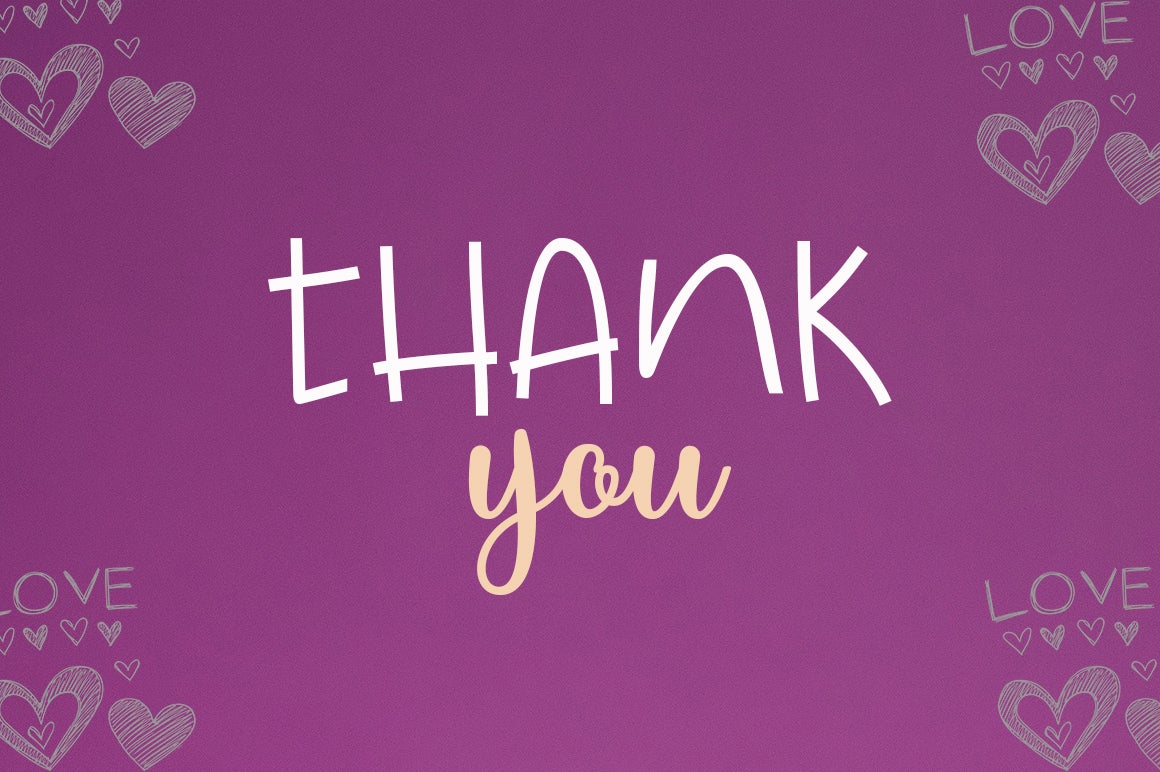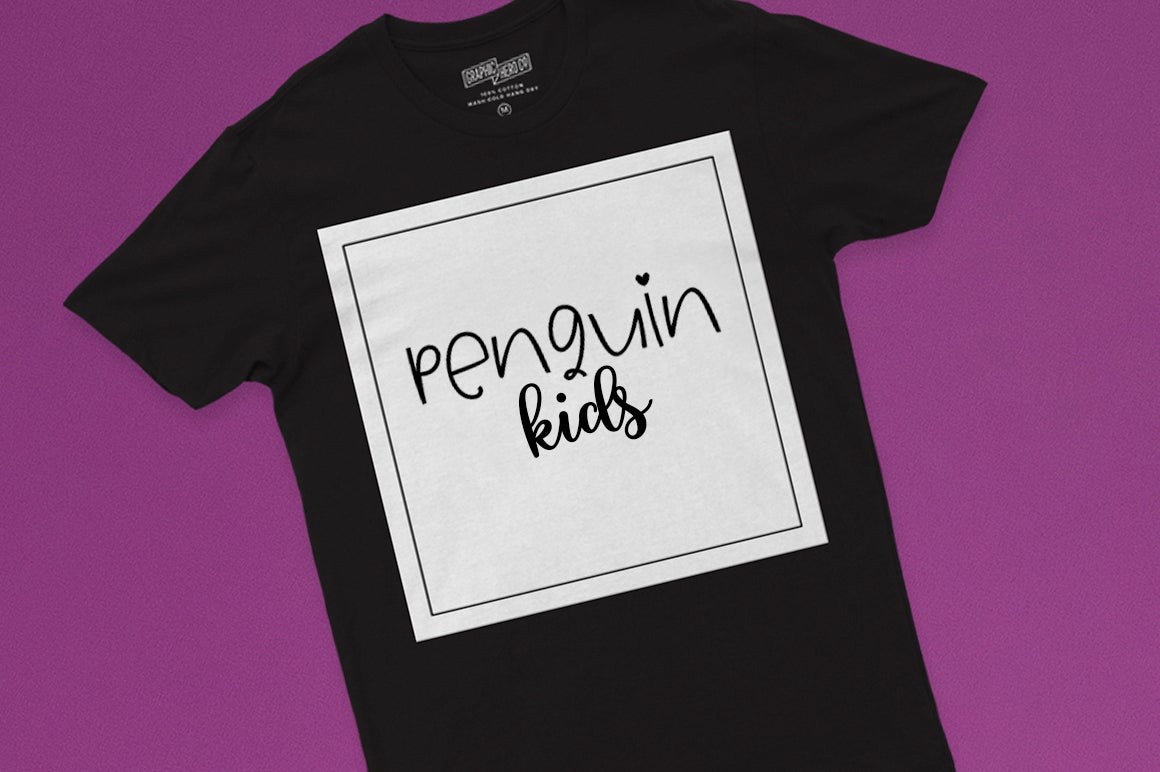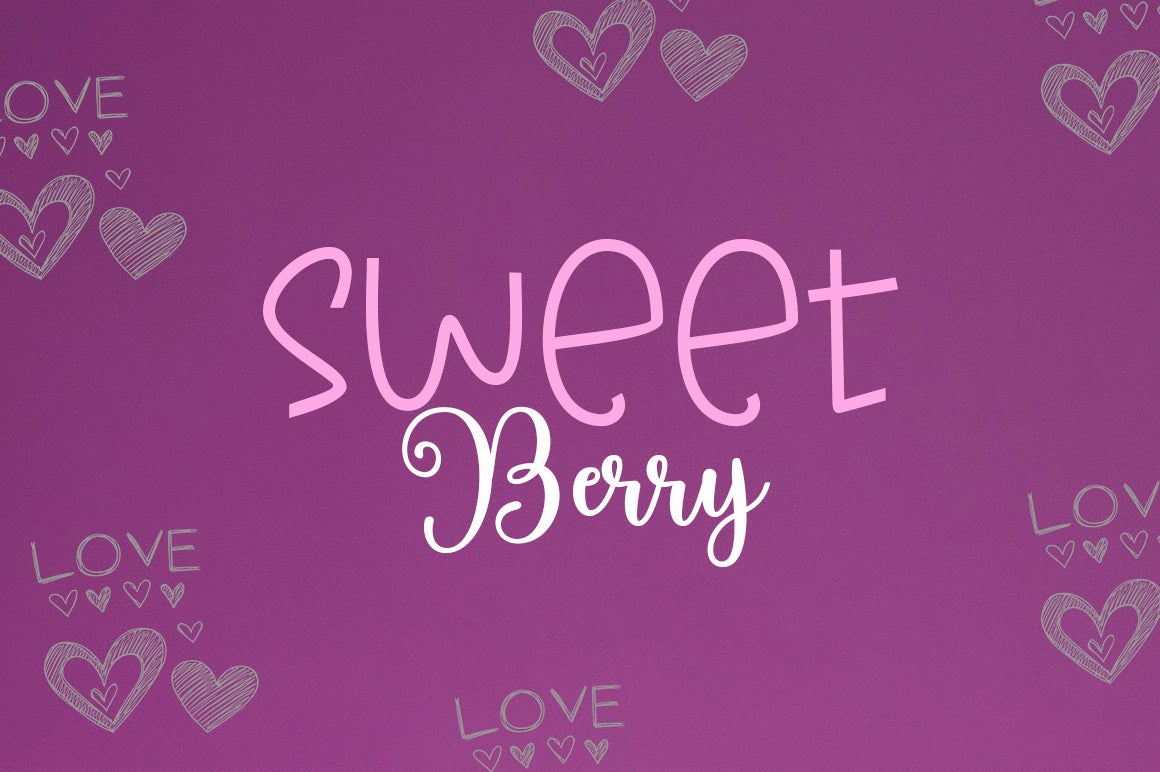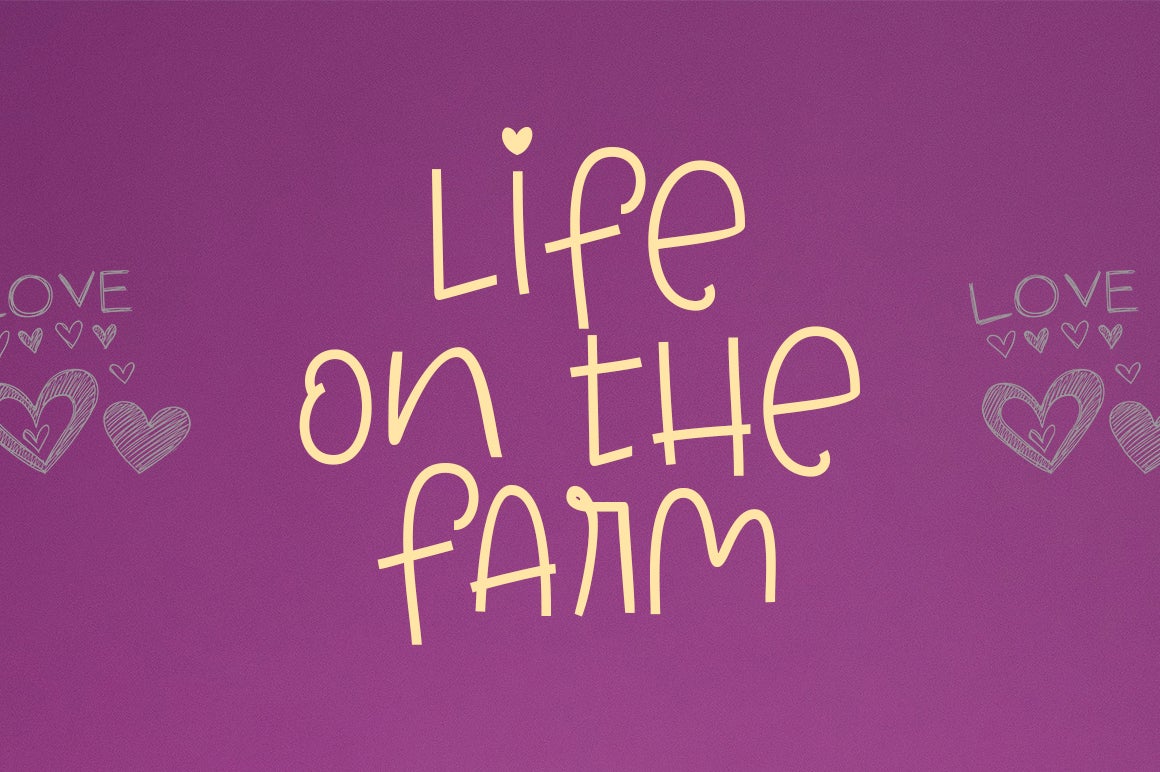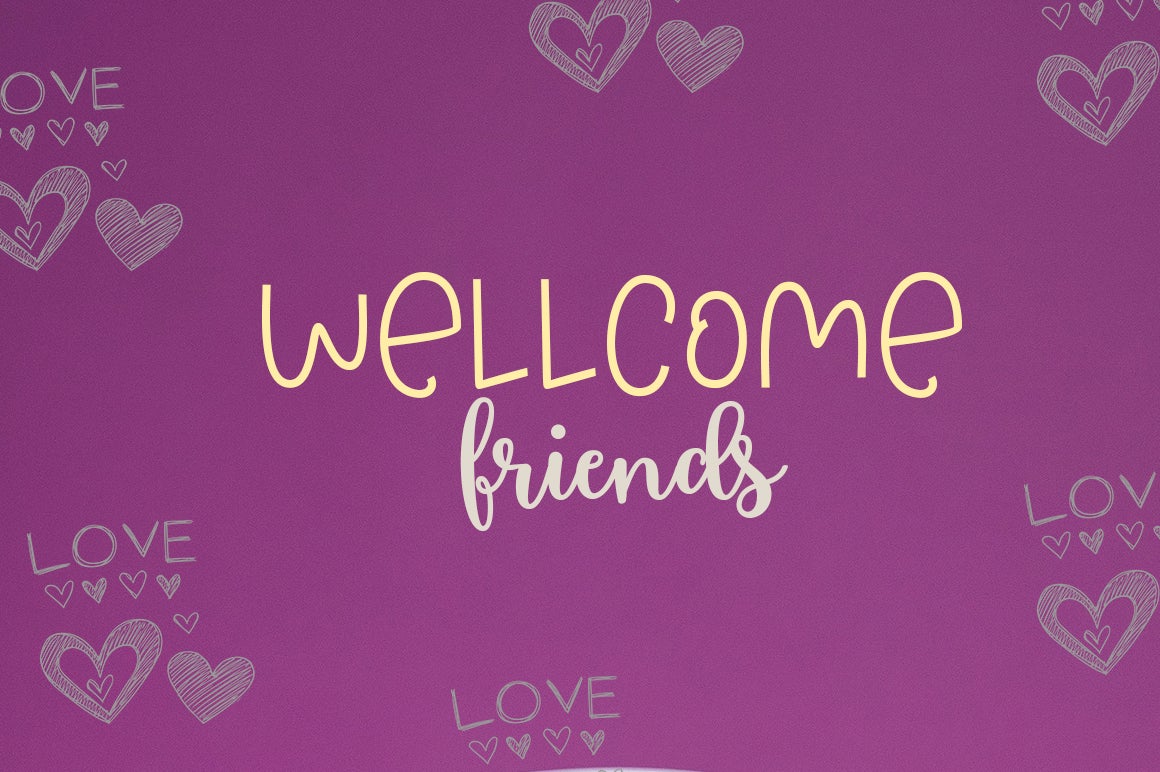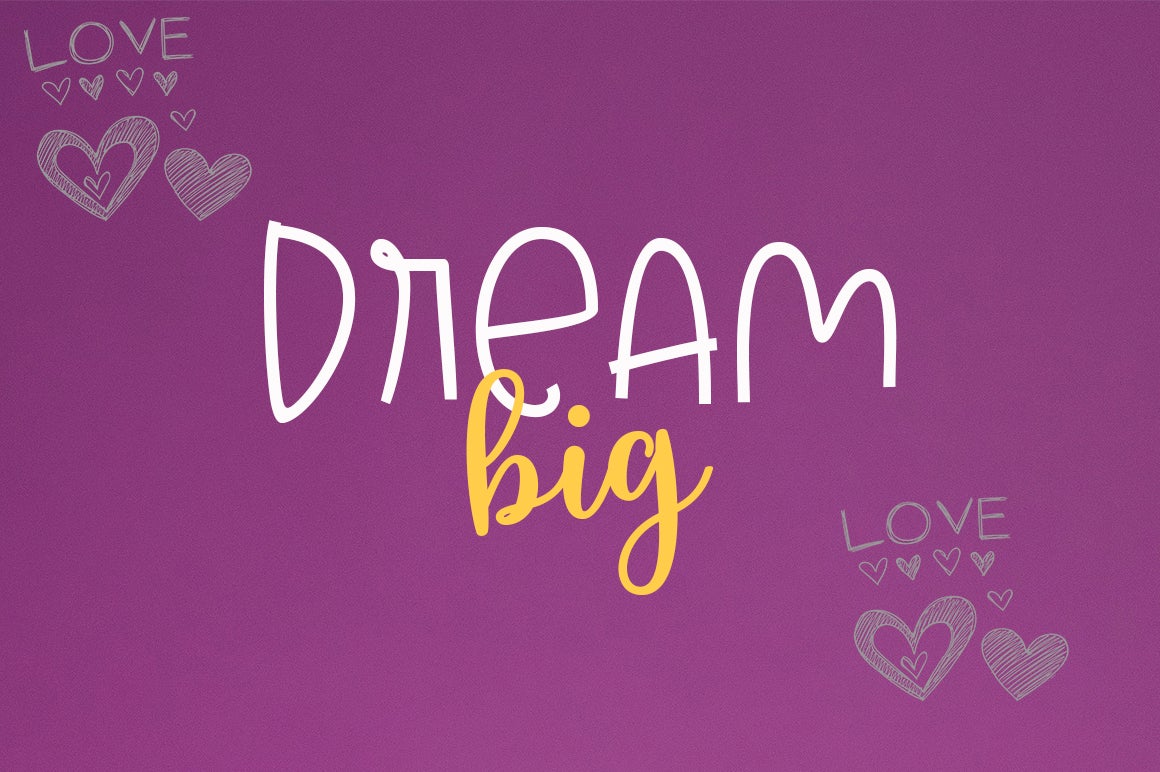
HomeScript FontsMiken Sweetness Script Fonts Miken Sweetness FacebookXPinterestWhatsApp 1 of 7 ... ... ... ... ... ... ... About Miken Sweetness is a lovely duo font (script and display). It embodies playfulness and authenticity and it has the ability to enhance any creation. Use it together or separately and you will love the results. DOWNLOAD NOW People also explored Romansh Font Gambit Fd Neue Font Cabaret Font Ellise Naomy Script Font Animal House Font Beauty Lemon Font Almond Slices Font Sign Card JNL Font Alpen Snow Font 200 0 TagsMiken Sweetness Previous articleAellenaNext articleAlhirah LEAVE A REPLY Cancel reply Comment: Please enter your comment! Name:* Please enter your name here Email:* You have entered an incorrect email address! Please enter your email address here Website: Save my name, email, and website in this browser for the next time I comment. Personal Use Free Stronger Personal Use Free Read more about this font Alinda Personal Use Free Read more about this font Caramel Latte Personal Use Free Read more about this font Christmas Diary Personal Use Free Read more about this font BLOG Free Fonts Risk: Why Free Fonts Can Be Dangerous for Designers Free Fonts Risk: Why Free Fonts Can Be Dangerous for Designers Using free fonts is a common practice in web and graphic design. However, the... How to Cut Any Font on Cricut: Convert a Font to SVG (Free) Where to Buy American Fonts Online in 2024 Exploring Font Trends